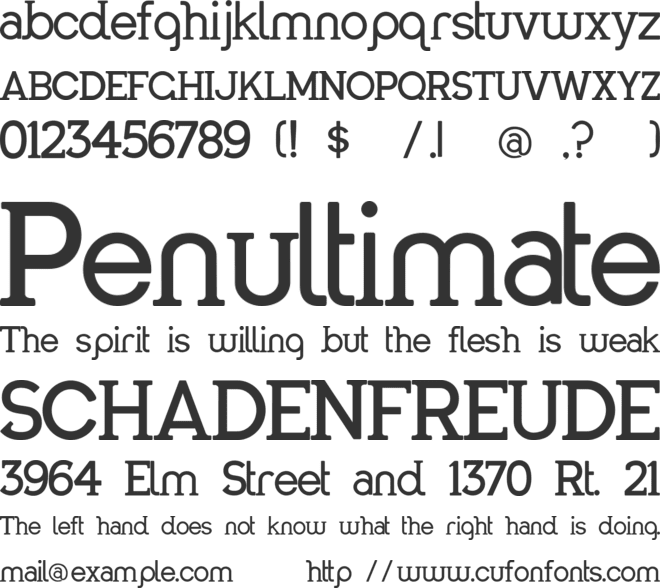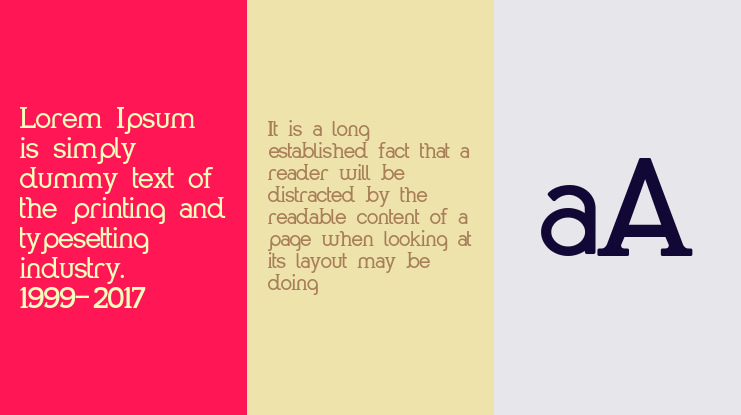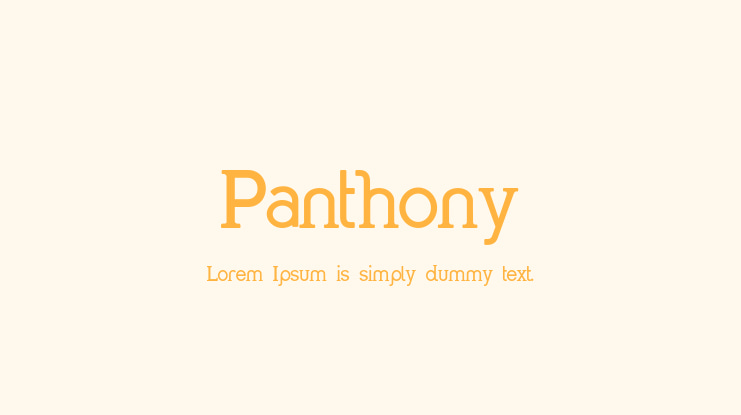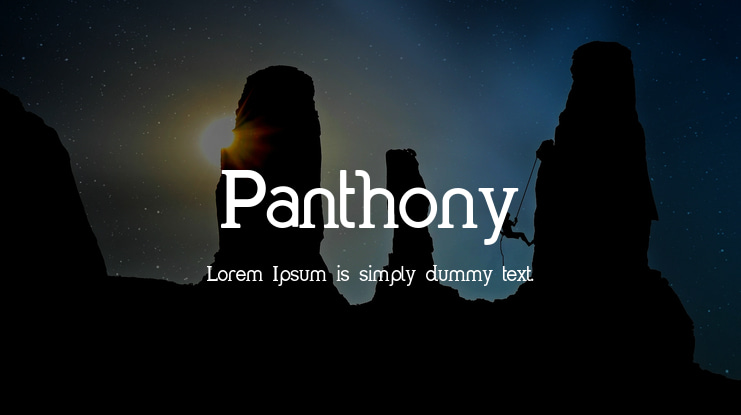
Panthony Font
Panthony was inspired by a logo we created for a client which was not chosen from our presentation. We created three unique letters starting with the lower case r and p. It took us three years to get around to complete the typeface!